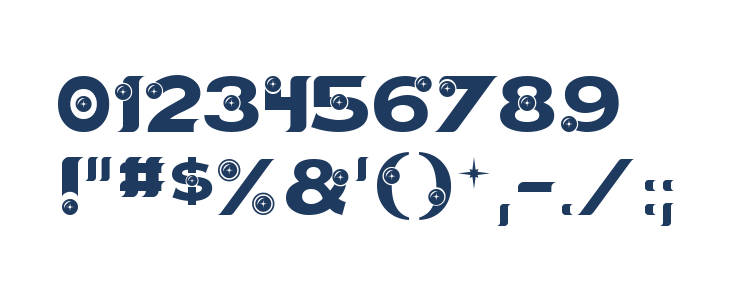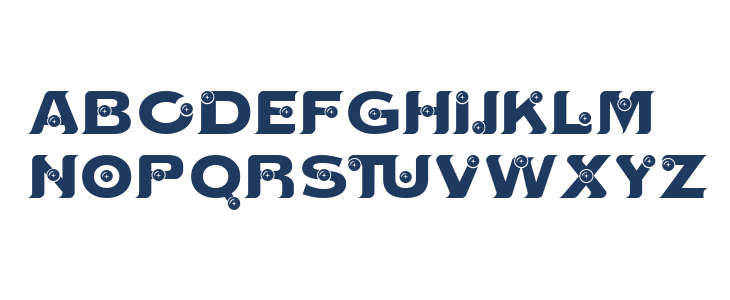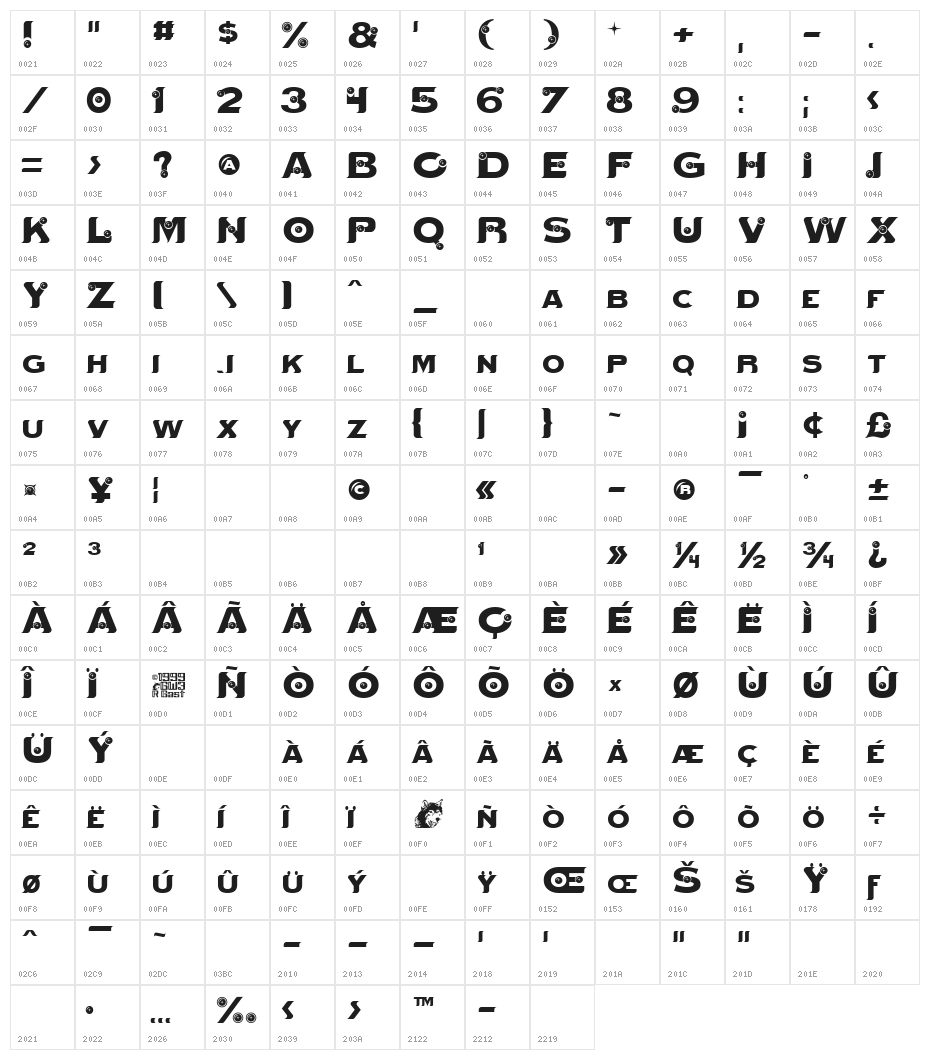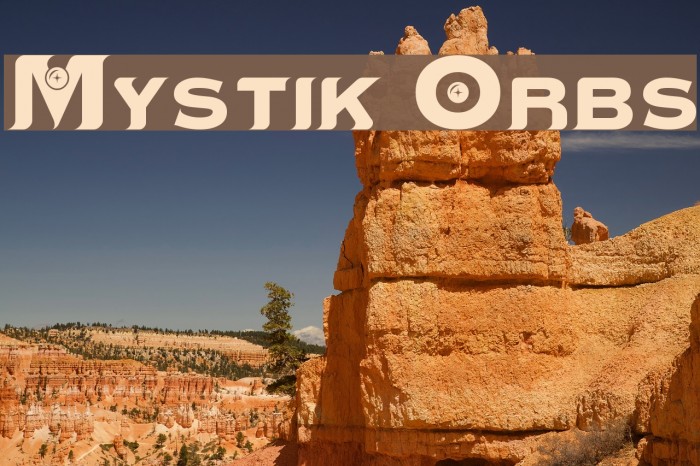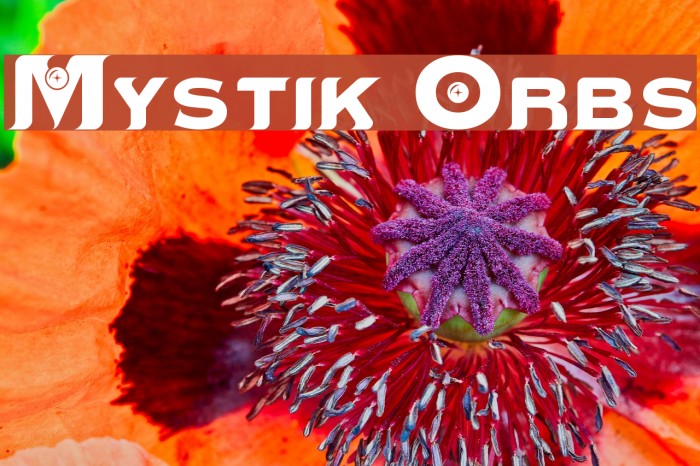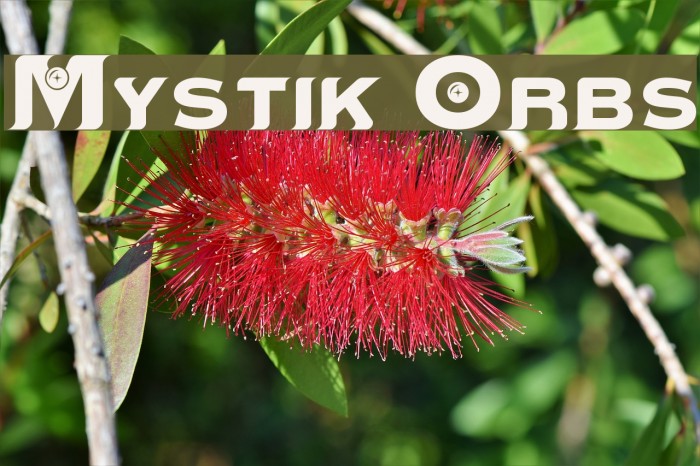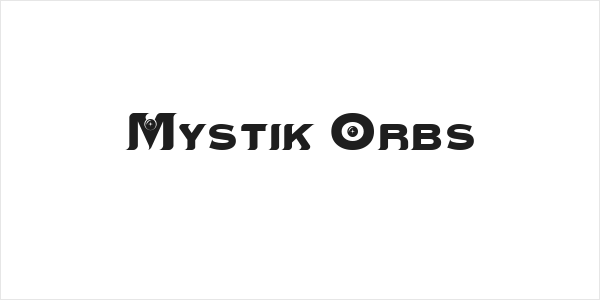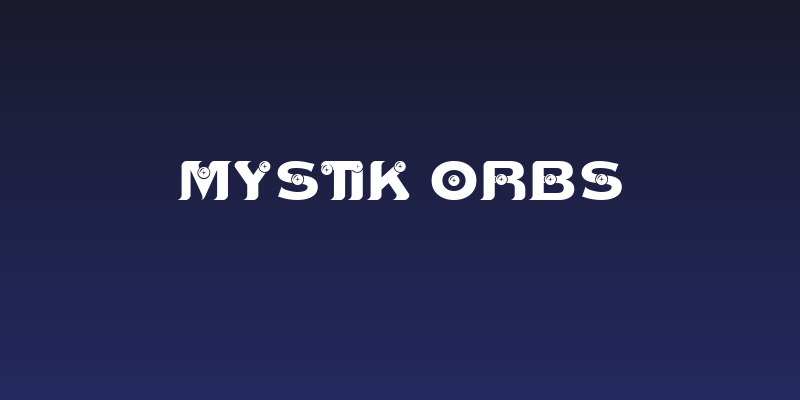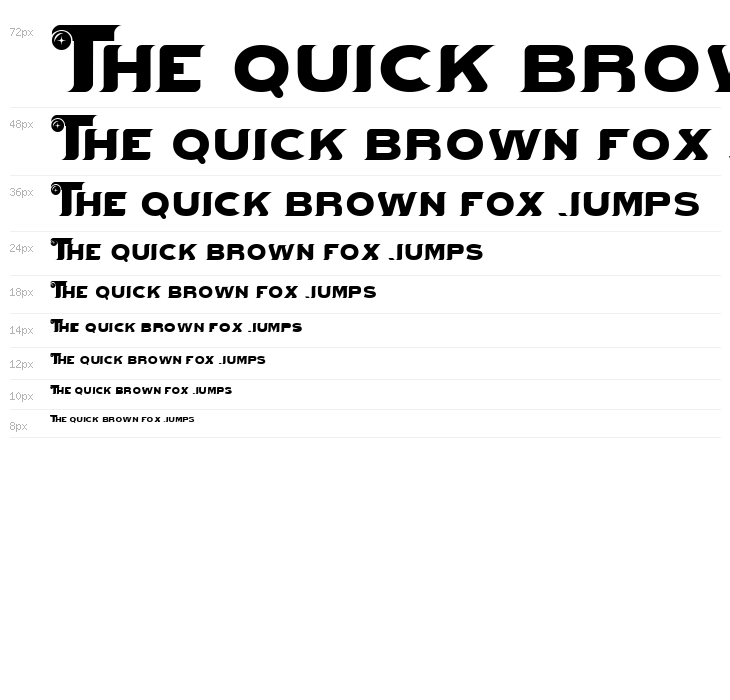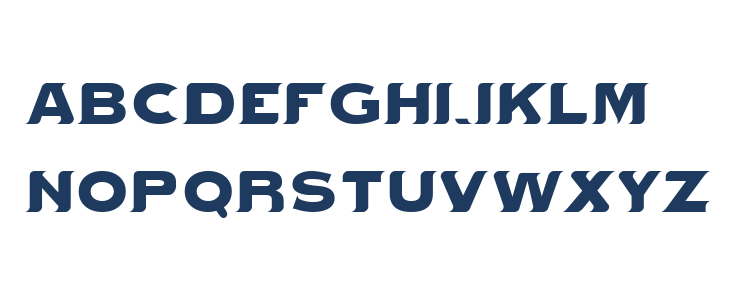
Mystik Orbs Font
Mystik Orbs Description
This font features a bold and striking design with unique circular embellishments integrated into each character, giving it a futuristic and decorative appearance. The uppercase and lowercase letters maintain a consistent style, with the embellishments adding a sense of movement and intrigue. The numerals and special characters follow the same design principles, ensuring a cohesive look throughout. This font's boldness and distinctive style make it stand out, ideal for projects that require a touch of modernity and creativity.
Overall StyleFuturistic, Decorative
Proposed ProjectsIdeal for sci-fi themed posters, video game titles, creative branding, and modern art projects.